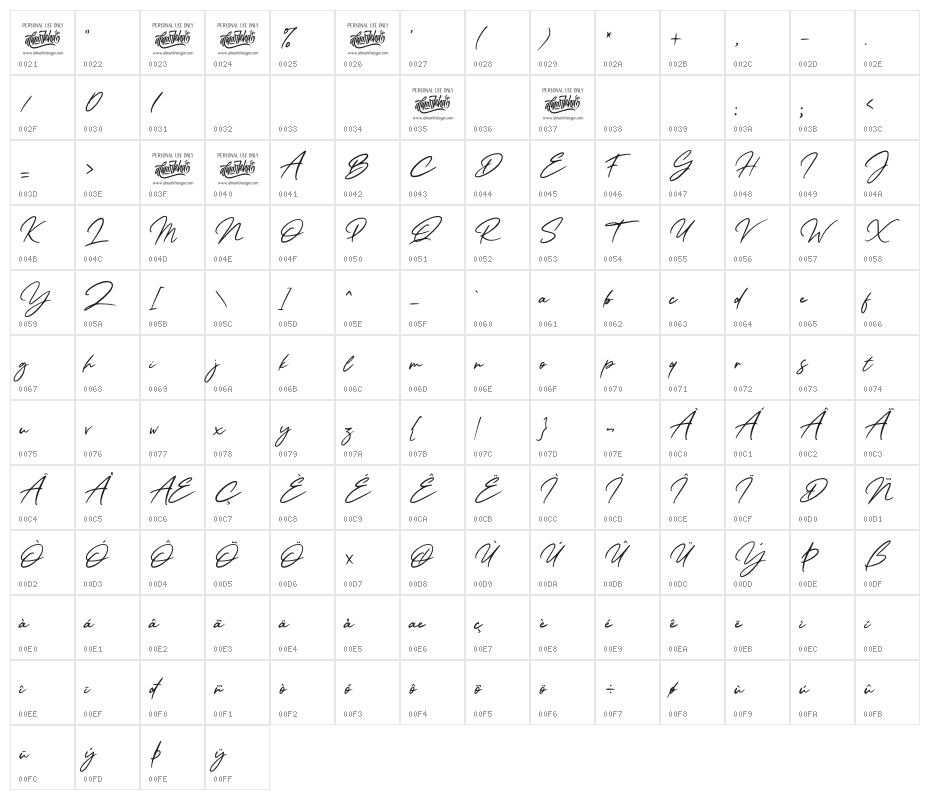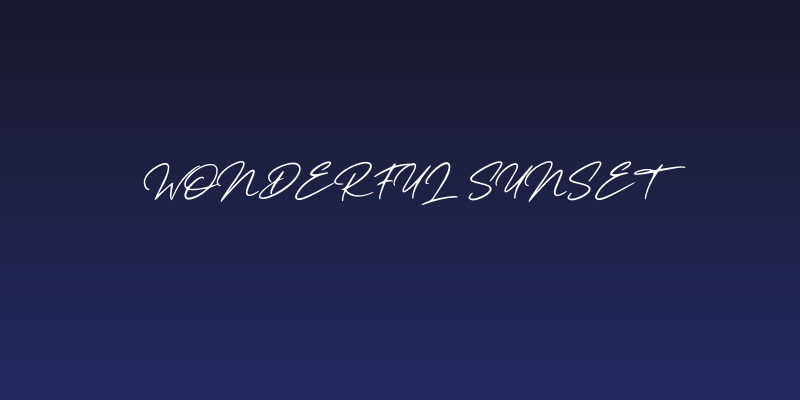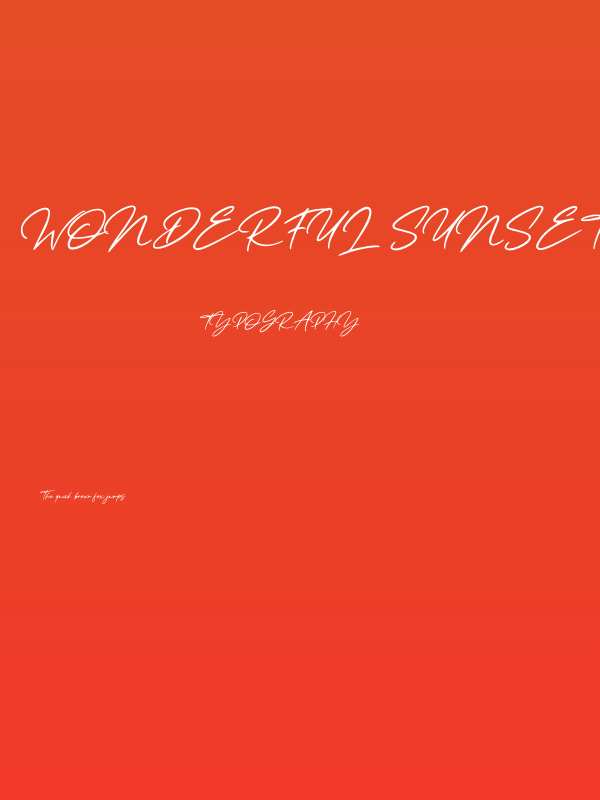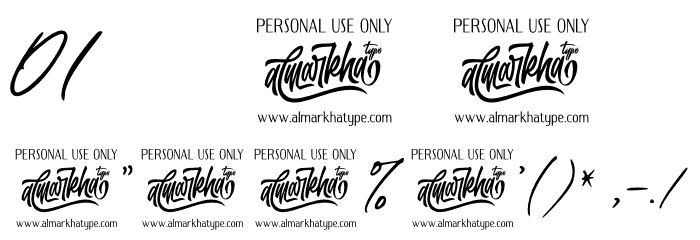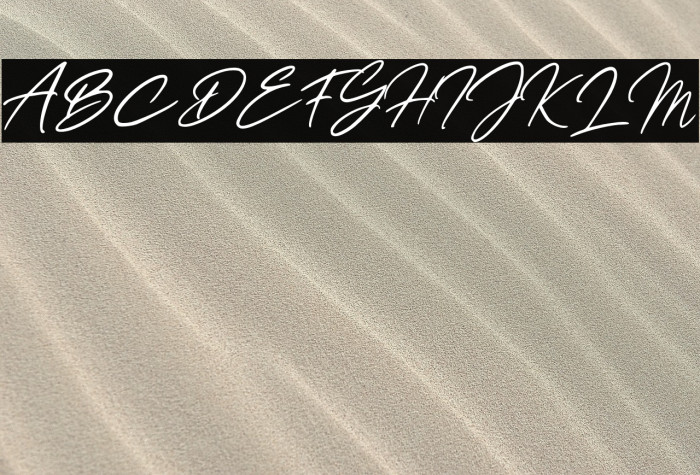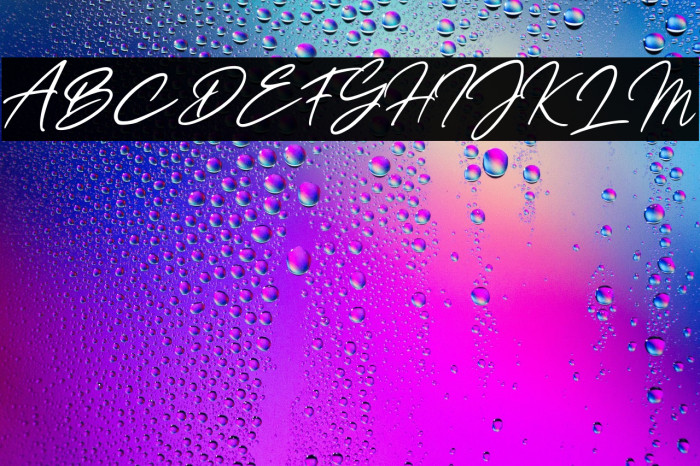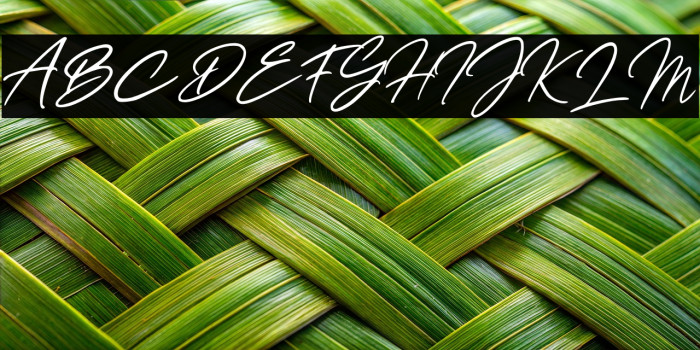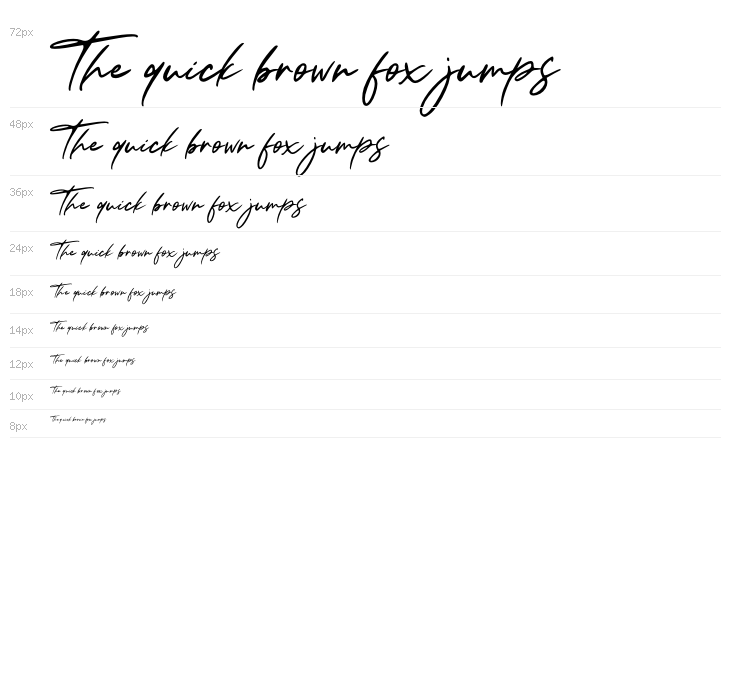
Wonderful Sunset Font
Wonderful Sunset Description
This font features an elegant, flowing script style that mimics natural handwriting with a touch of sophistication. The uppercase letters are bold and sweeping, while the lowercase letters maintain a consistent fluidity, making it suitable for creative and artistic projects. The numerals and special characters are designed to complement the overall aesthetic, ensuring a cohesive look. The font's strokes vary in thickness, adding a dynamic and lively feel. It is perfect for personal use, adding a personal touch to invitations, greeting cards, and other decorative projects.
| Proposed Projects | Ideal for wedding invitations, greeting cards, branding, and artistic projects. |